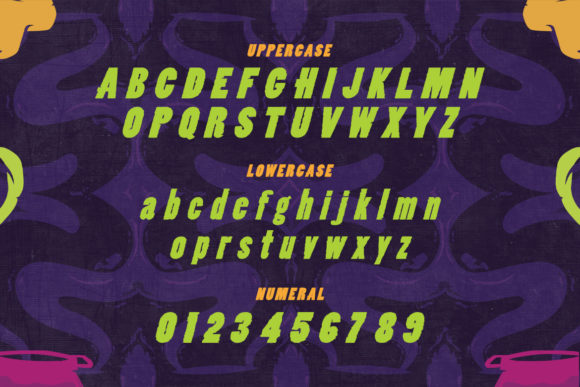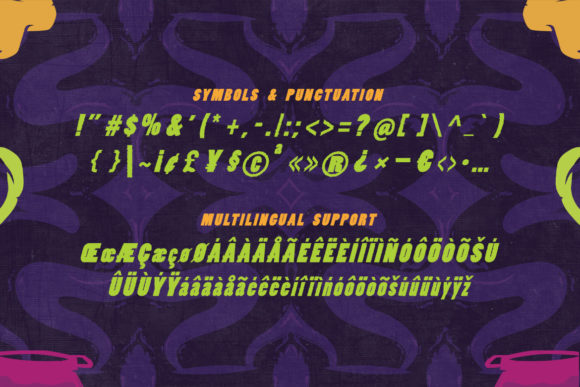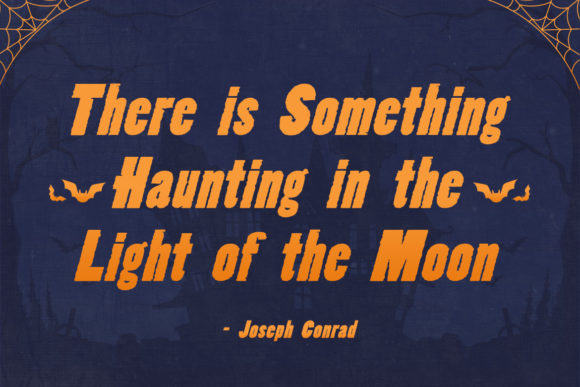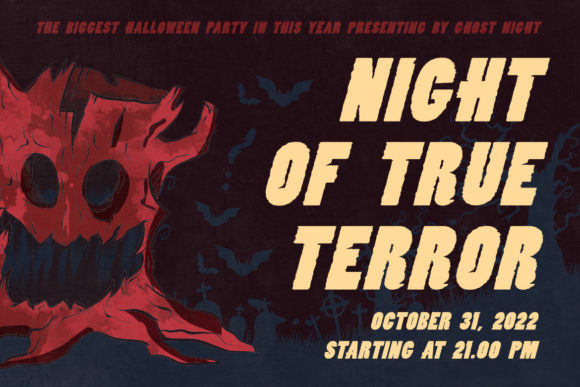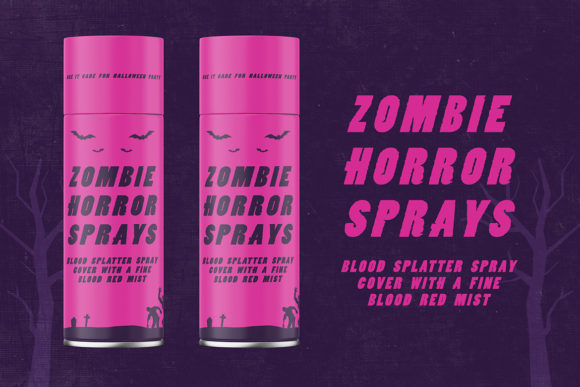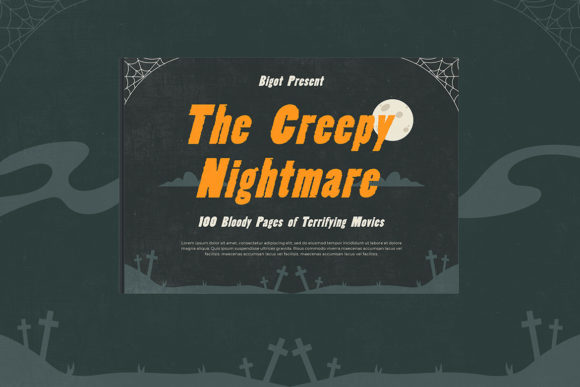
The Bigot Font: A Bold and Unique Display Font to Elevate Your Designs
I’ll never forget the moment I stumbled upon the Bigot font. I was working on a project for a client who needed a bold, eye-catching title for their branding campaign. I had spent hours scouring the internet for the perfect font, but nothing seemed quite right. That was until I saw Bigot – its unique blend of style and sophistication immediately caught my attention, and I knew I had found the one.
An Honest Review of Bigot Font
- ✨ Bold and attention-grabbing: Bigot font is perfect for making a statement in your designs. Its bold and confident style demands attention and makes your text stand out.
- ✅ Unique and creative: The font’s unique design makes it perfect for creative projects, such as posters, flyers, and social media graphics.
- 💡 Versatile: Despite its bold style, Bigot font can be used for a variety of design projects, from modern and edgy to elegant and sophisticated.
While Bigot font is an excellent choice for many design projects, there are a few things to keep in mind:
- 🤔 Legibility at small sizes: As with many bold fonts, Bigot may not be the best choice for small text sizes, as it can become difficult to read.
- ⚠️ Overuse: Bigot font is best used sparingly, as overusing it can make your design look cluttered and overwhelming.
One of the standout features of Bigot font is its OpenType features and glyphs. These allow you to customize your text and add unique touches to your design. Some of the OpenType features of Bigot font include:
- Stylistic alternates: These allow you to switch between different font styles, such as italic or bold.
- Glyphs: These are special characters that can be used to add unique touches to your design, such as flourishes or swashes.
The Story Behind Bigot Font
Bigot font was designed by a team of talented typographers who wanted to create a bold and unique display font. Inspired by modern design trends and classic typography, Bigot font is the result of hours of careful craftsmanship and attention to detail.
Q: What is Bigot font?
A: Bigot font is a bold and unique display font designed for creative projects.
Q: What is Bigot font used for?
A: Bigot font is perfect for designs that need a bold and attention-grabbing title, such as posters, flyers, and social media graphics.
Q: Is Bigot font easy to read?
A: Bigot font is best used at larger sizes, as it can become difficult to read at small sizes.